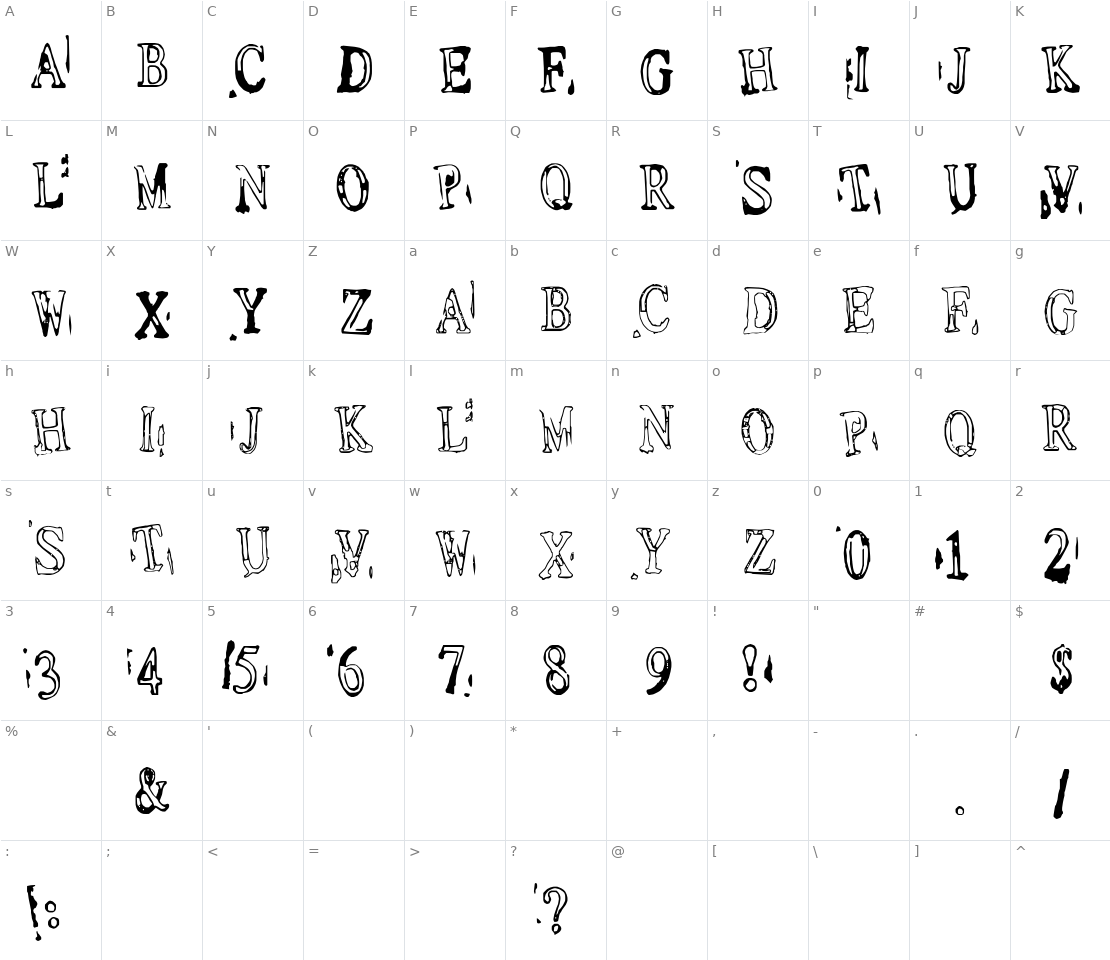
Depressionist 1
Depressionist 1 is a raw, sketchy display face from MR.FISK FONTS with letterforms that look scratched out by hand in a state of agitation. The strokes are uneven and jittery, with a rough, grunge-inflected quality that feels more unsettling than merely distressed. It sits firmly in horror and dark editorial territory, best used for headlines, posters, and packaging where you want type that looks genuinely disturbed.